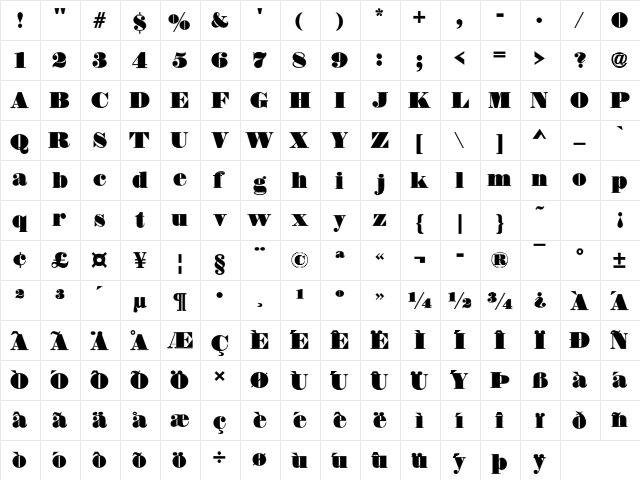
DS Thorowgood Contour Regular
| Foundry | Typographer Mediengestaltung |
| Designer | William Thorowgood, 1821 |
Design Context for DS Thorowgood Contour Typeface
DS Thorowgood Contour takes a measured approach to typography — its balanced proportions and neutral character make it a reliable workhorse for both digital and print work.
Pro Tip: Use DS Thorowgood Contour in both headline and body roles to test its range before committing to a single application.